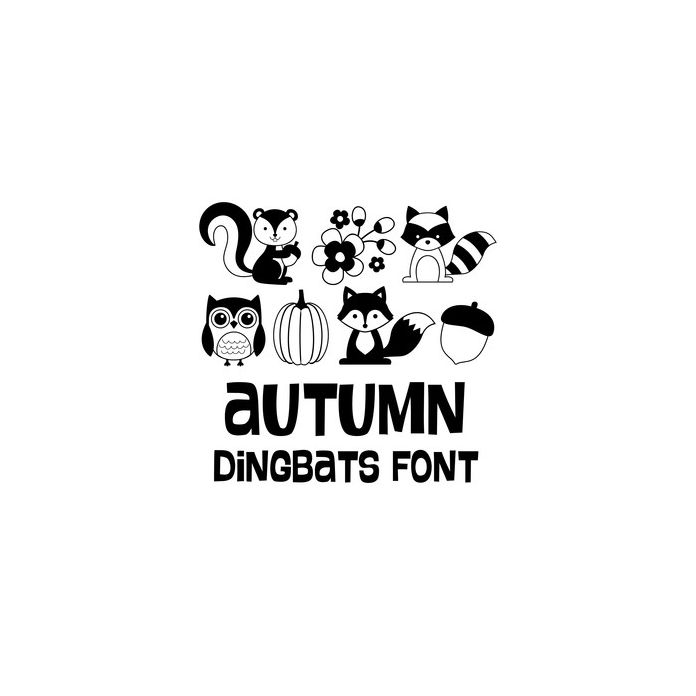
autumn dingbats font
This cute dingbat font includes 26 autumn icons that you can type + cut. Make adorable autumn themed projects with this fun font.